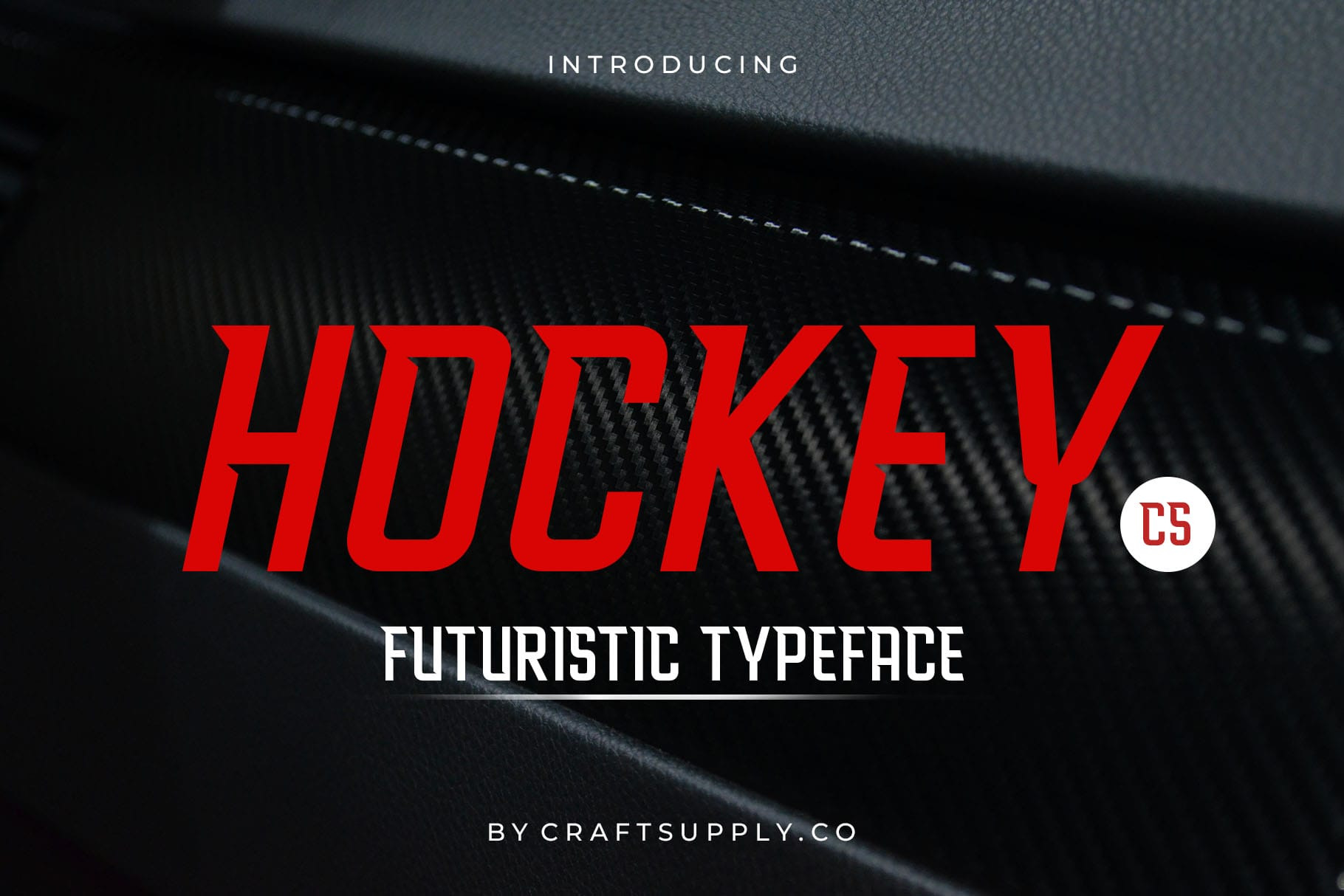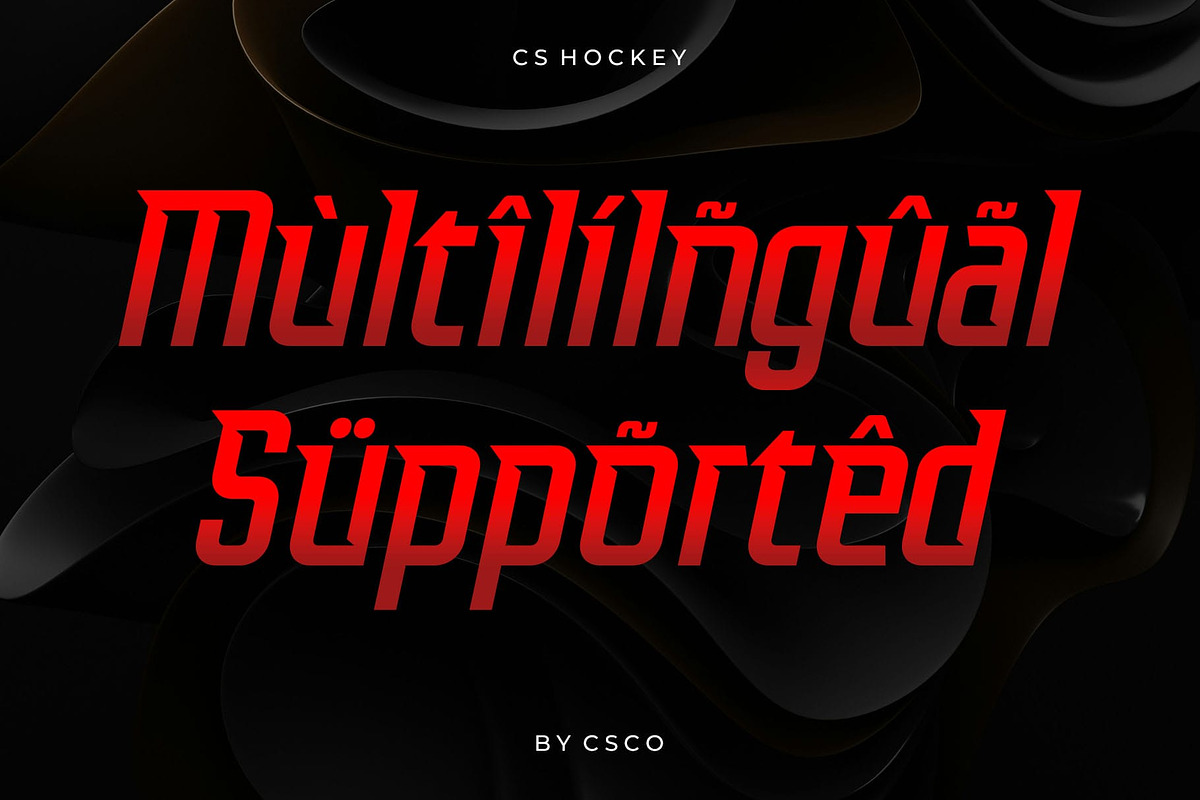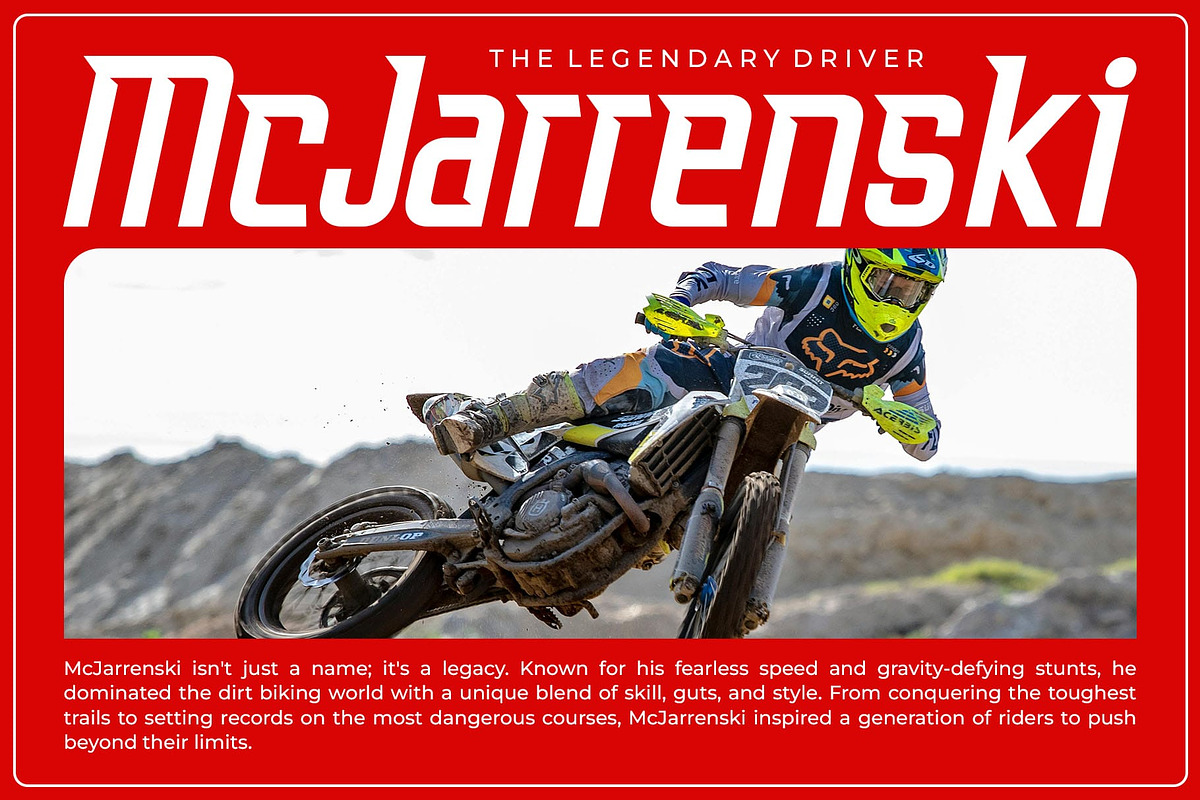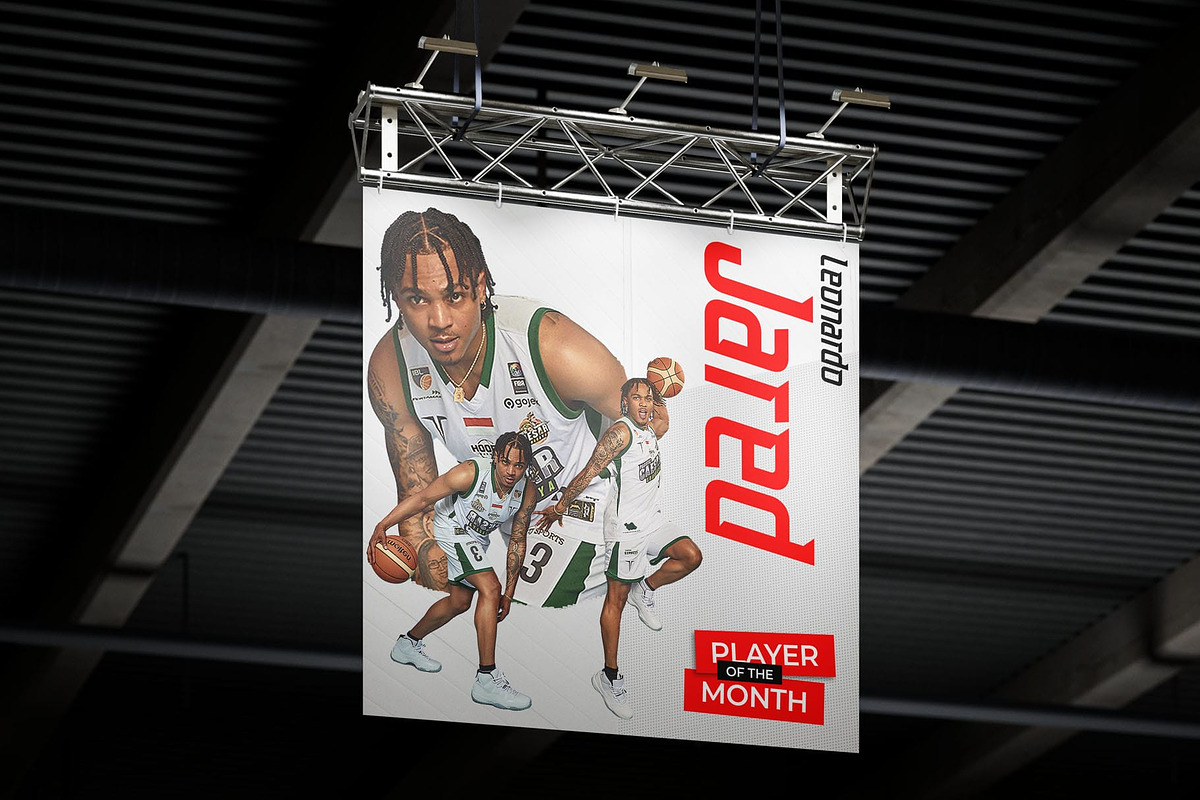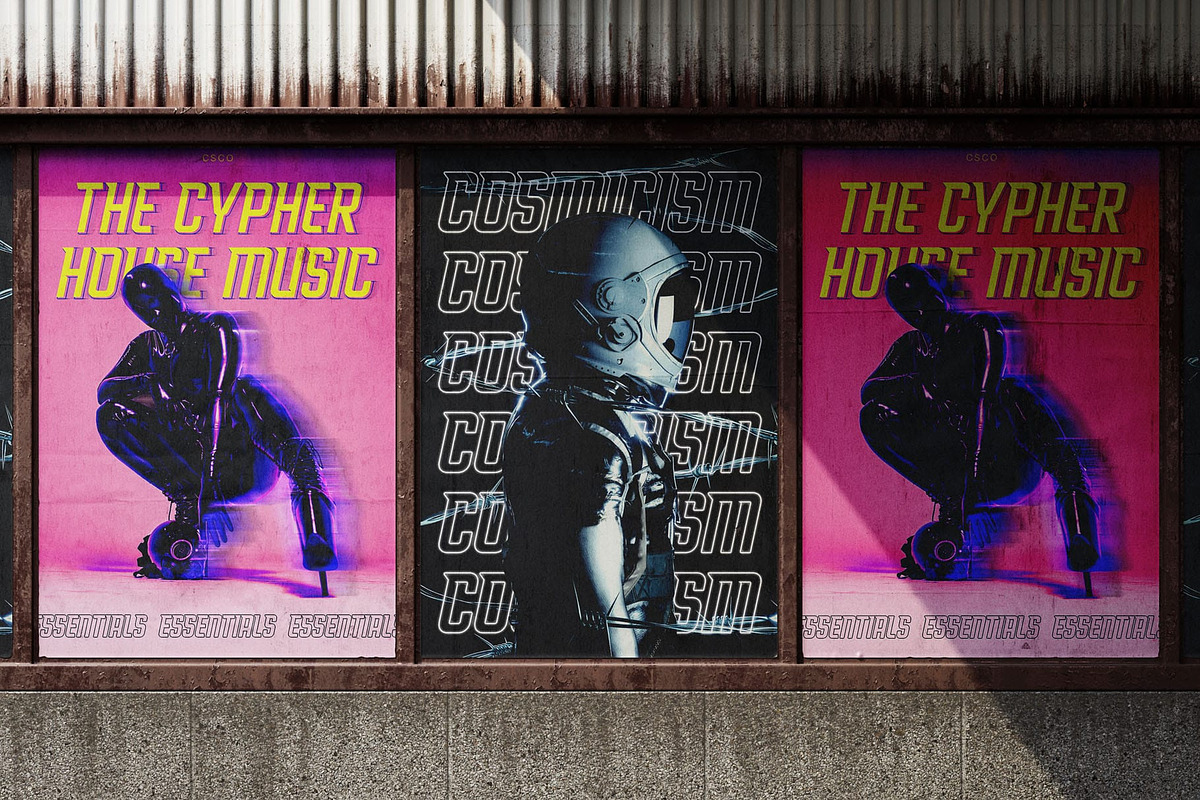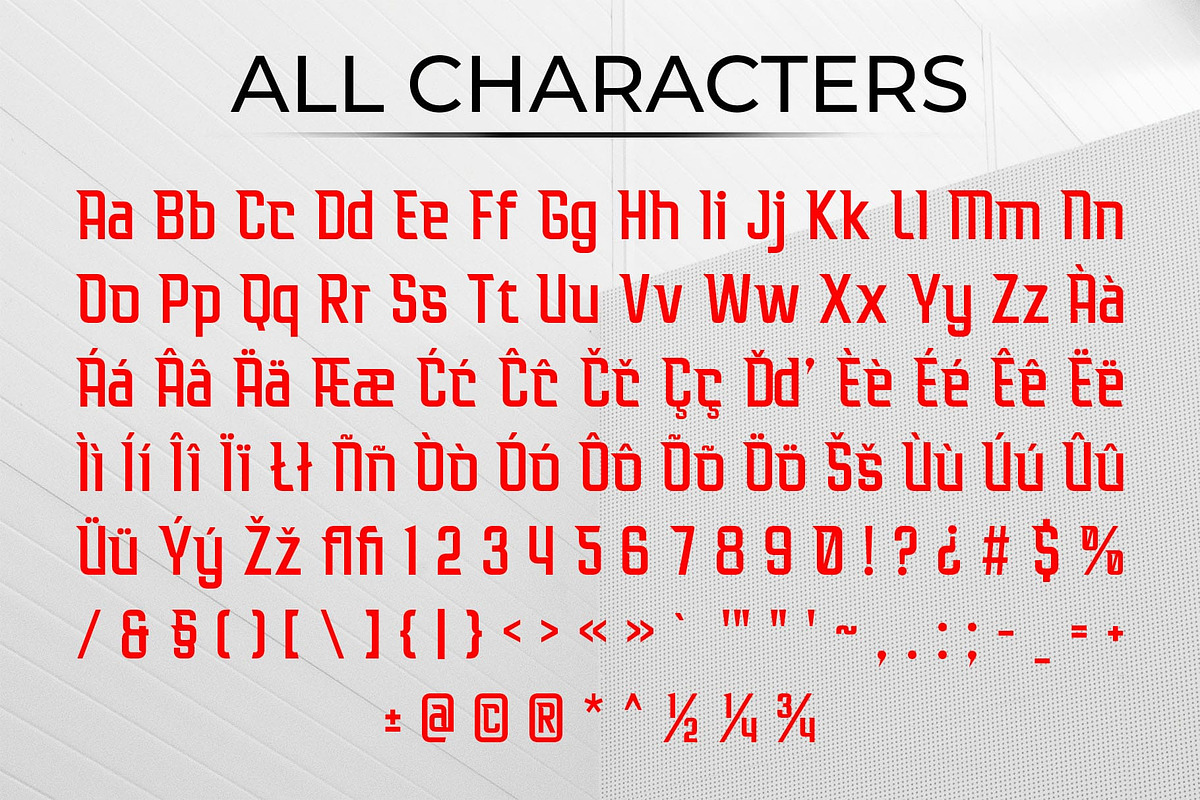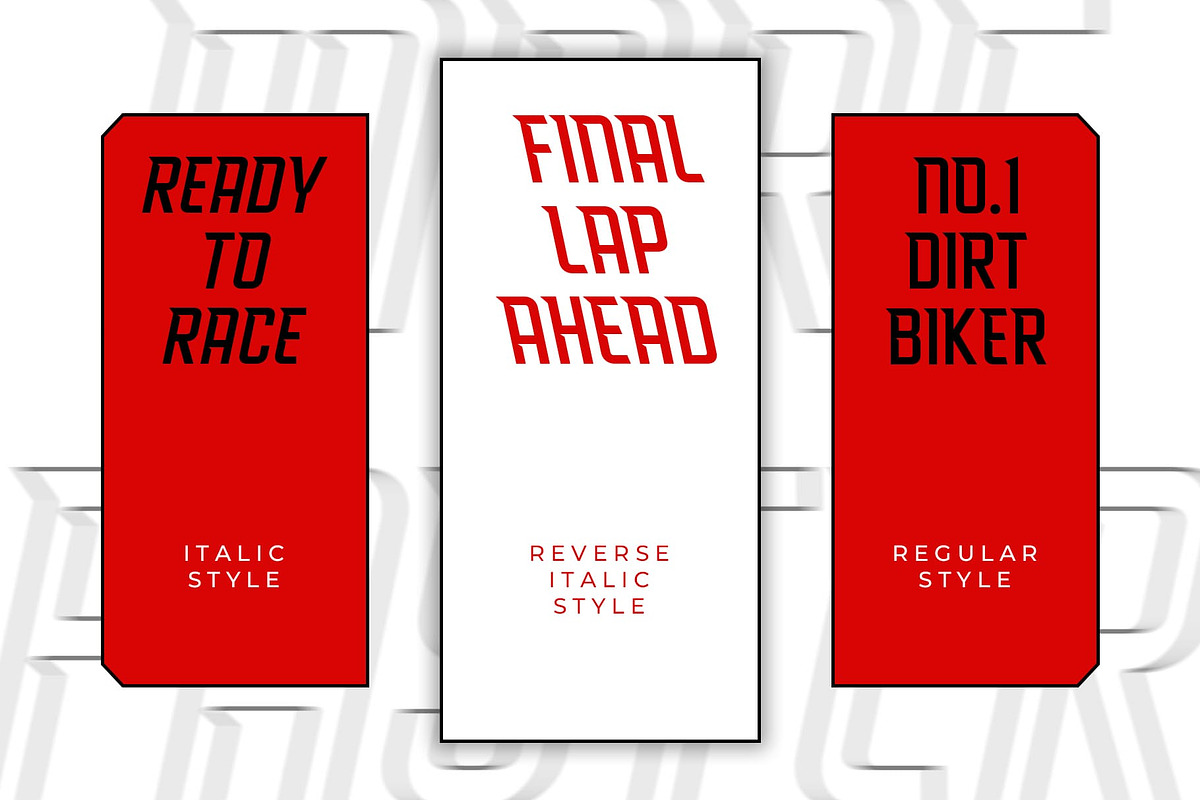
CS Hockey – Cyberpunk Font
CS Hockey – Cyberpunk Font: Bold, Futuristic Energy
Modern Sans-Serif with a Futuristic Edge CS Hockey is a modern sans-serif display font designed with a sharp, bold presence that exudes a futuristic and cyberpunk energy. Combining geometric elements with irregular distortions, this font encapsulates the essence of high-tech innovation, perfect for projects that demand a cutting-edge and dynamic aesthetic.
Cyberpunk Aesthetic with Digital Distortions The unique features of CS Hockey reflect the cyberpunk genre, with sharp cuts, irregular shapes, and intricate distortions that evoke a sense of digital technology and dystopian futures. The design embodies the futuristic world of virtual reality, artificial intelligence, and digital cities, creating a visual experience that is both bold and edgy.
Perfect for Tech Branding and Sci-Fi Designs CS Hockey’s striking appearance is ideal for technology branding, futuristic graphic design, and projects that focus on the cyberpunk genre. Whether you’re working on sci-fi themed branding, urban-inspired graphics, or digital tech visuals, this font brings a sense of energy and innovation that stands out in the digital age.
Enhanced by Neon and Lighting Effects Often enhanced with neon effects or futuristic lighting, CS Hockey takes on a powerful, illuminated look that perfectly complements projects aimed at futuristic storytelling or cutting-edge technology. Ideal for designs focusing on sci-fi, digital technology, and cyberpunk aesthetics, this font brings your creations to life with intensity and visual intrigue.
- CS Hockey Regular
- CS Hockey Italic
- CS Hockey Reverse Italic